If you want to add a beauty and personality touch to your designs, calligraphy fonts are the most plausible option. Although these fonts aren’t the most readable, they’ll spice up the design with a creative and aesthetic touch. Fortunately, many best calligraphy font collections are available, but finding the best one is difficult.
Since every font has different characteristics, some calligraphy fonts can be simple or stunning for certain designs. The good news is you have tons of the best free calligraphy fonts that you can choose carefully depending on the message you want to deliver.
Mostly, calligraphy fonts are designed from traditional handwriting with extra elaborate strokes and additional ornaments. As a result, it has its own authenticity and decorative appearance.
1. Good Vibes
The first recommended calligraphy font is Good Vibes by Peter Olexa. It is a remarkable font with uneven handwriting design. It features realistic imperfections and chunky stroke wishes. This combination indicates the distinct character that makes the work stand out.
2. Germanica Font
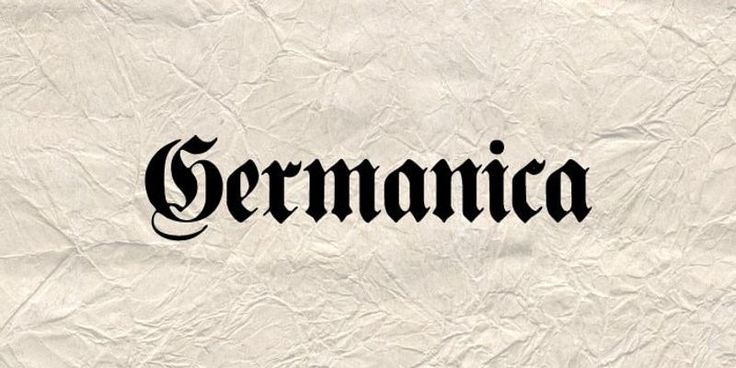
Germanica is one of the best calligraphy fonts with a blackletter design which is great for any special projects and branding. It also has plain, shadowed, embossed, and embossed with shadowing styles. Moreover, it is free for both personal and commercial use.
3. Old London
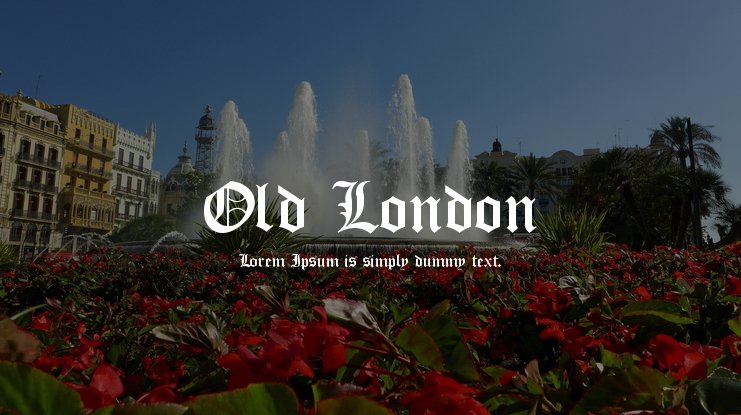
Like the previous font, Old London also has a traditional blackletter design. But it’s a modern version with white space between the words and letters. The decorative caps are also pretty compact, with no overabundance of swashes.
4. Miama
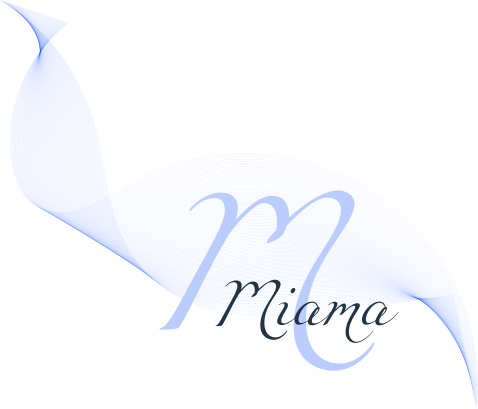
If you want thin letters with a feminine touch, consider the Miama font above. As you can see, It presents a charming and feminine handwritten feel. The ascenders and descenders are also pretty long with thin strokes, making them great for greeting cards and other decorative work.
5. Bukhari Script
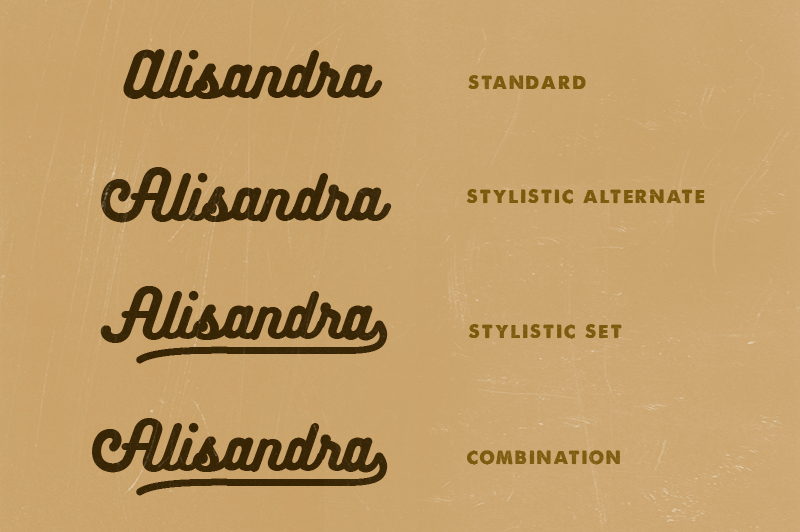
Simple yet elegant design with readable letters, Bukhari Script is one of the most recommended letters. It has a bold monoline cursive with several OpenType features. So, you may apply it to create awesome ligatures and variations.
6. Cursif Font
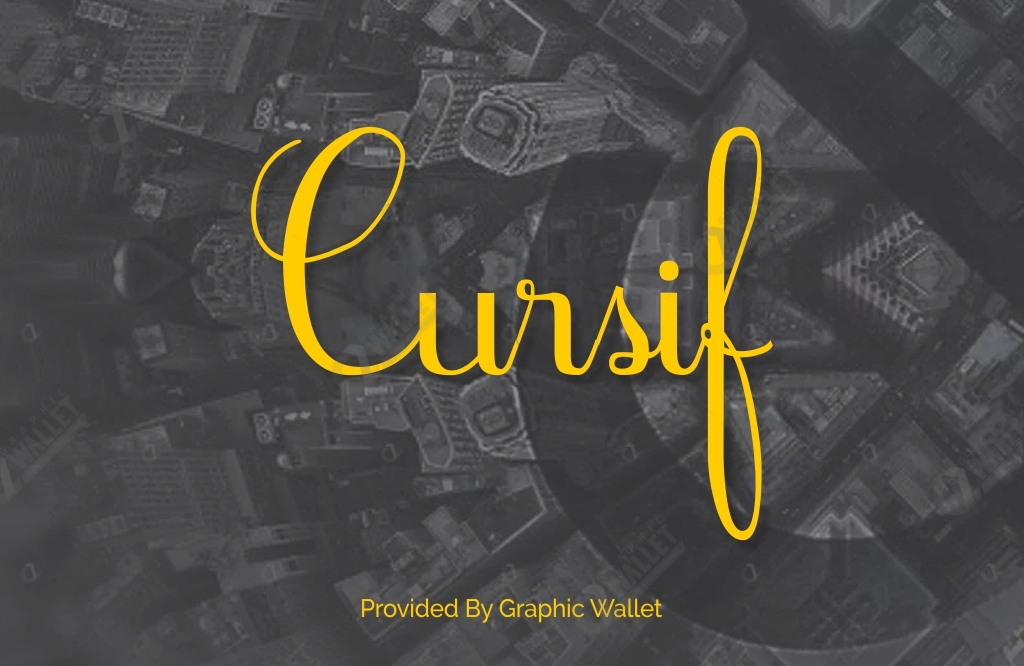
Cursif font is an ideal free font for short lines of text. It is formed with a tall and classic calligraphy style that gives an elegant touch to any design. Therefore, you may use this font to attract more readers for specific events, such as exhibitions.
7. Autery Script Font
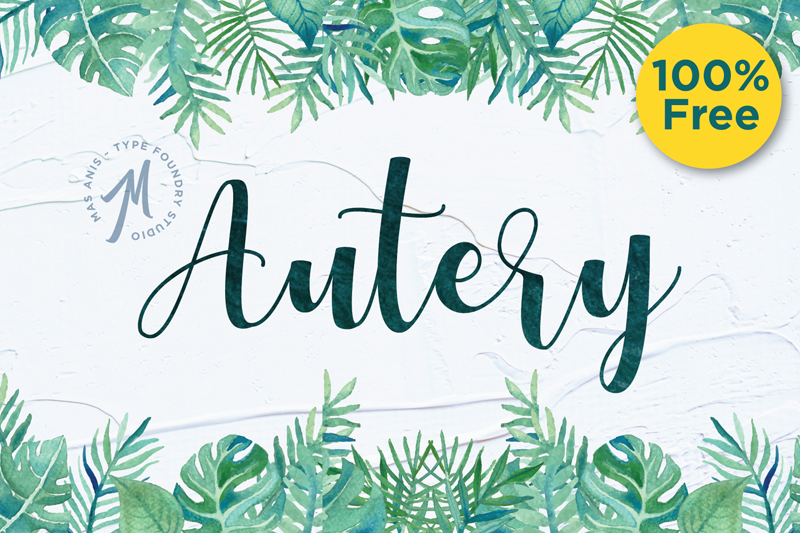
Autery calligraphy font is perfect for branding products geared toward younger audiences. This font is designed with a chic and captivating design. Moreover, it has a playful look combining both bold and thin strokes.
8. Nickainley
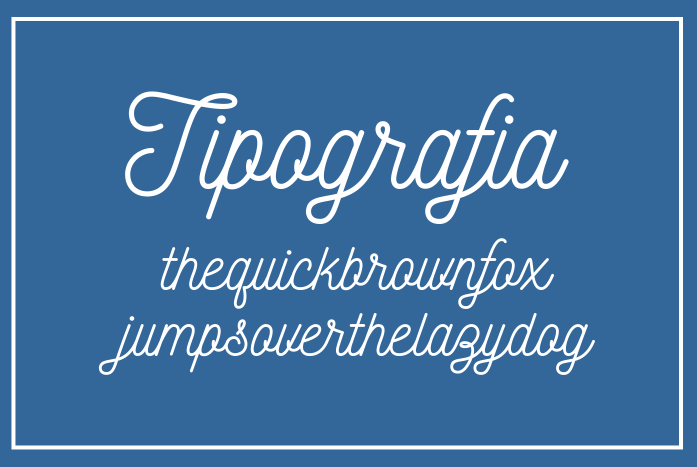
Nickainley is a neatly lined font with a monoline design. It also has a large x-height design that is remarkably readable. You may use the italicized calligraphic for headlines, logos, and others.
9. Blenda Script
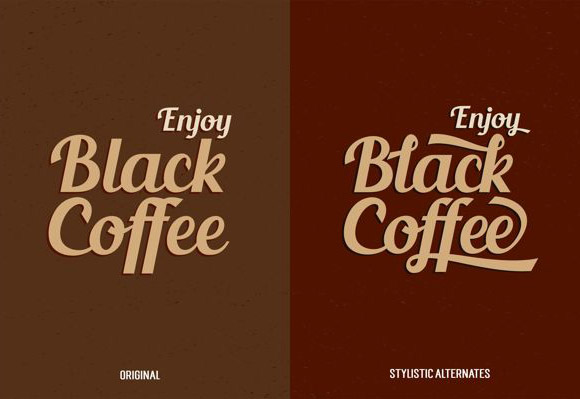
Blenda Script is a font that has a bold headline with an outstanding collection of stylistic alternatives of lowercase characters. Furthermore, readers can read this font effectively with a slightly vintage touch. So it’ll be great for logos and titles.
10. Freebooter Script
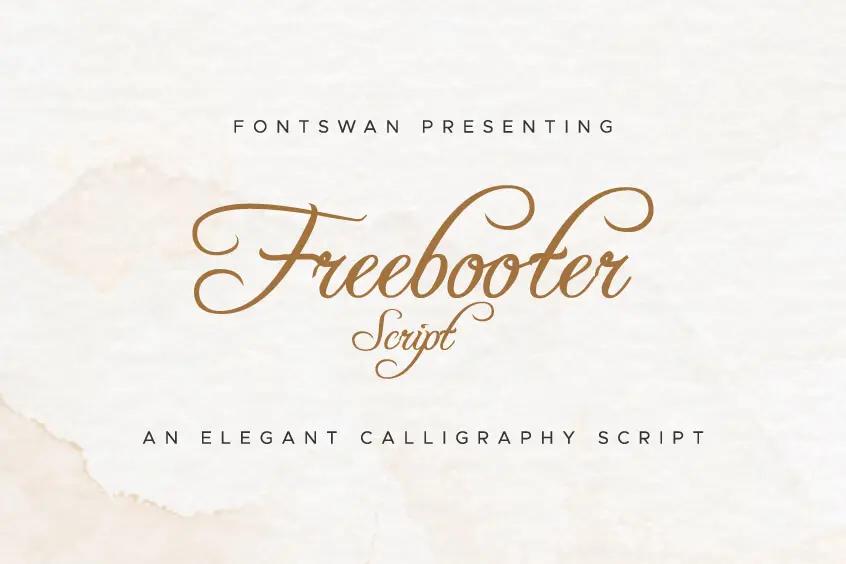
Even though there are a lot of favorite calligraphy fonts, this Freebooter Script will be the last option. It has a precision and elegant design that exudes femininity. Thus, it’ll be the best calligraphy font for your design’s glamorous and refined look.
Have You Discovered Your Best Calligraphy Font?
Calligraphy fonts are indeed very unique and sophisticated, with a myriad of designs and characteristics. These fonts will be great for titles or highlights that portray the personality of your brand or design. Fortunately, you can find fantastic arrays of free fonts on the internet.